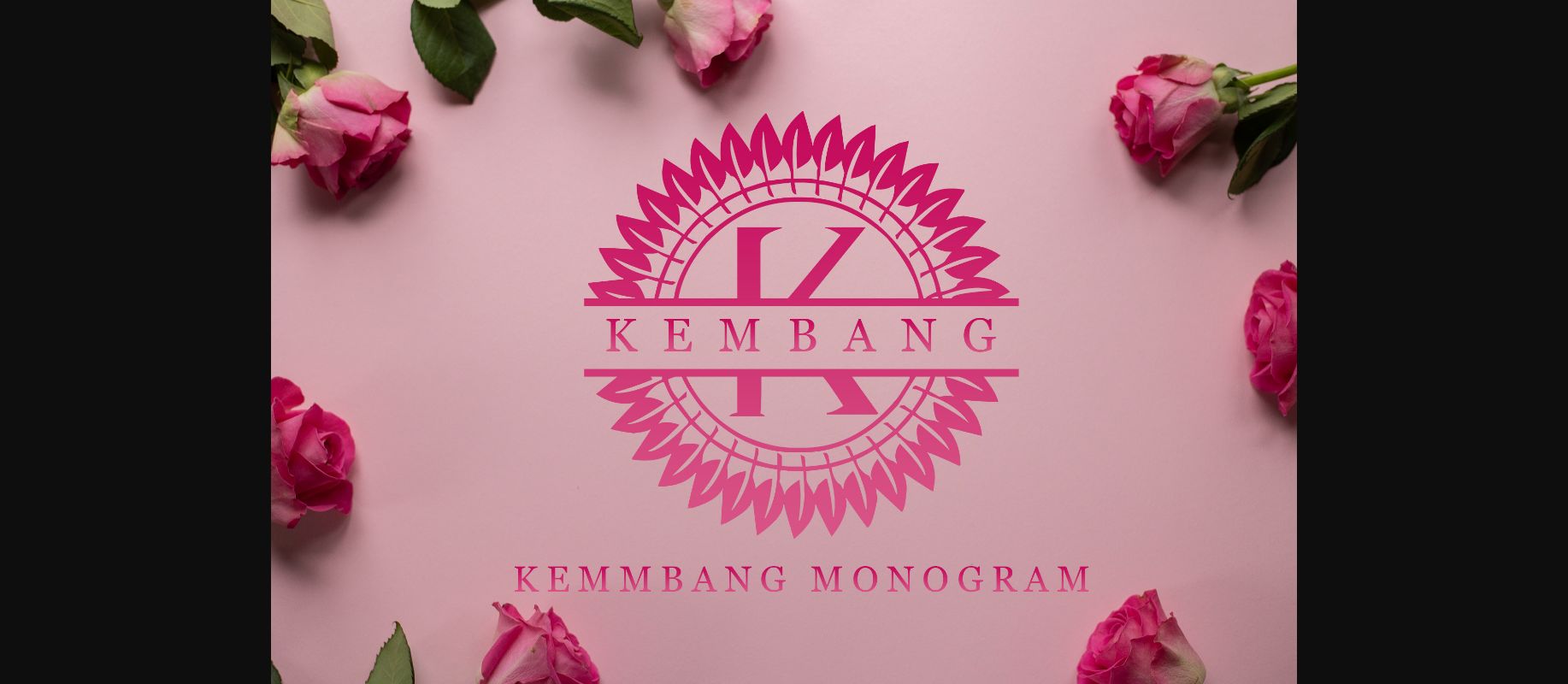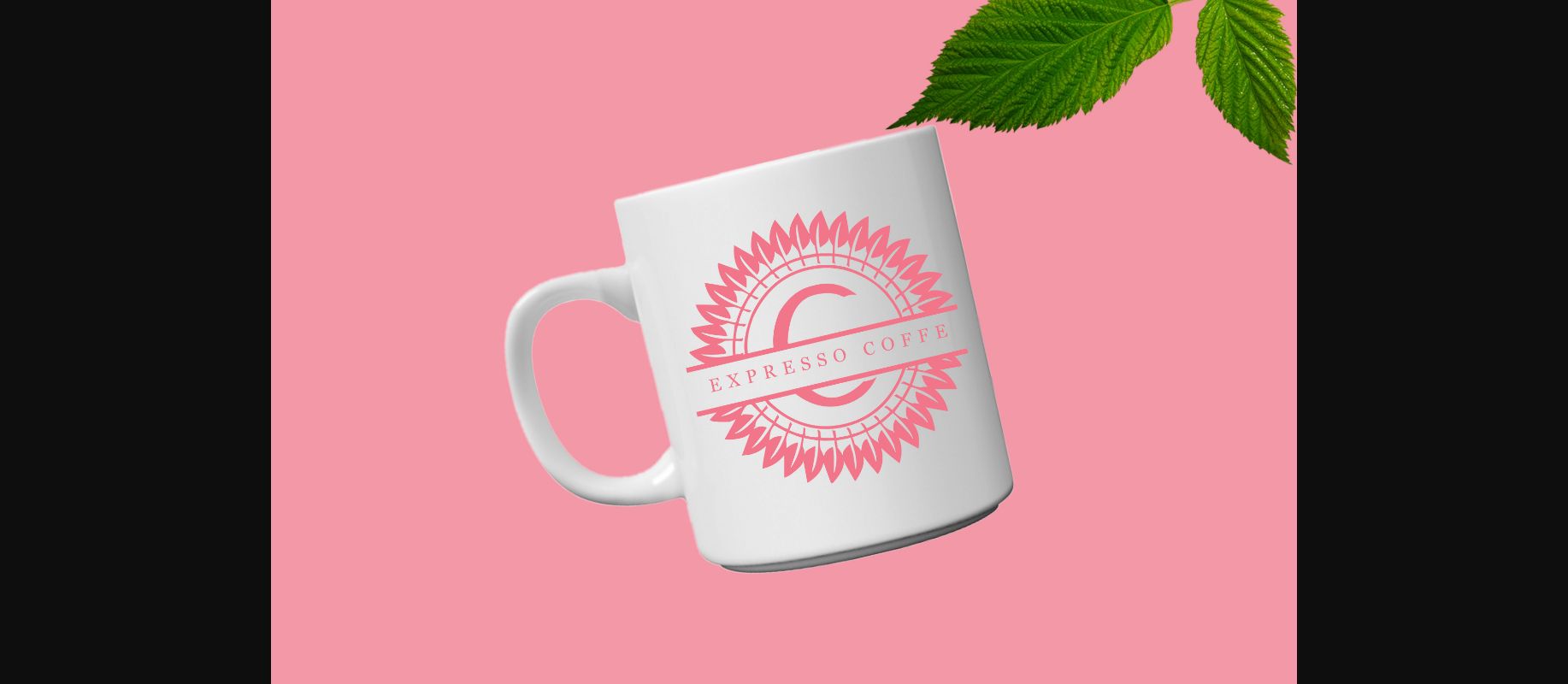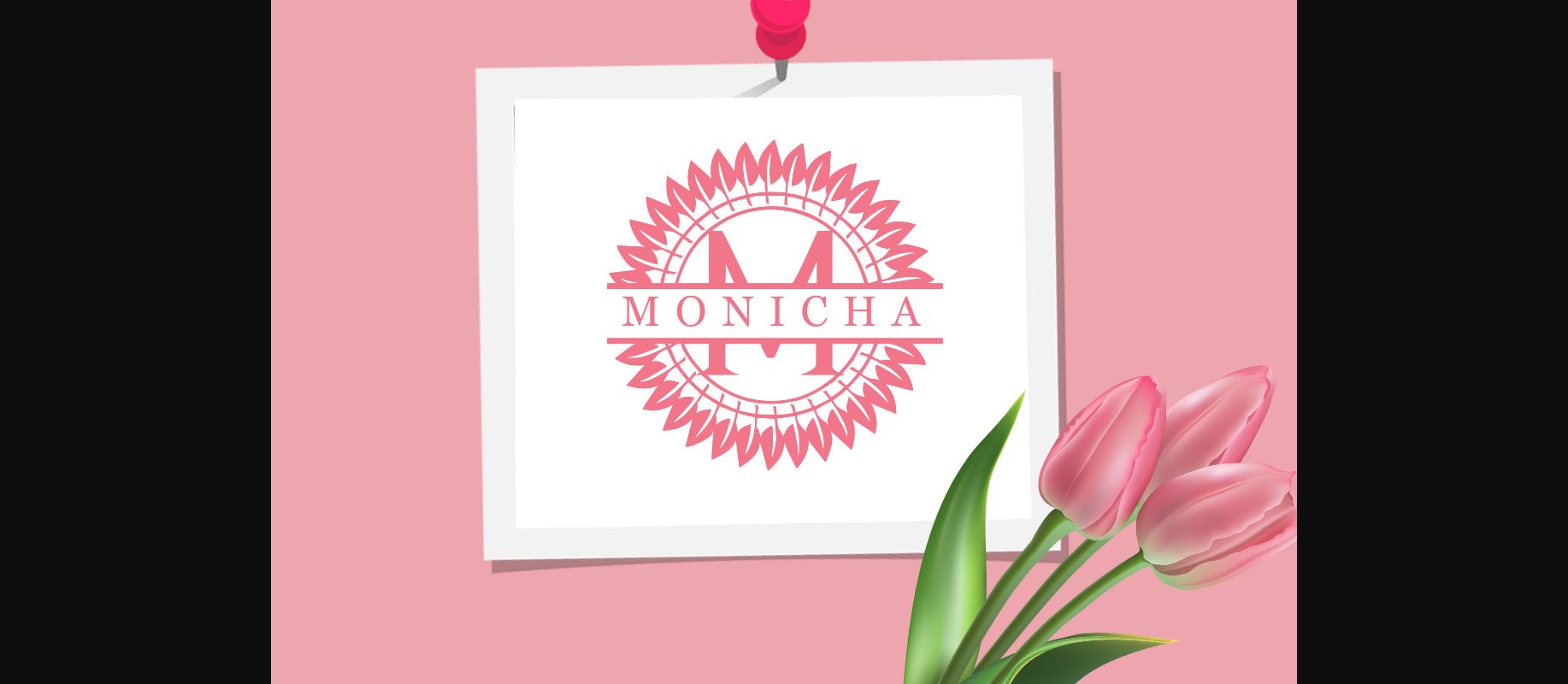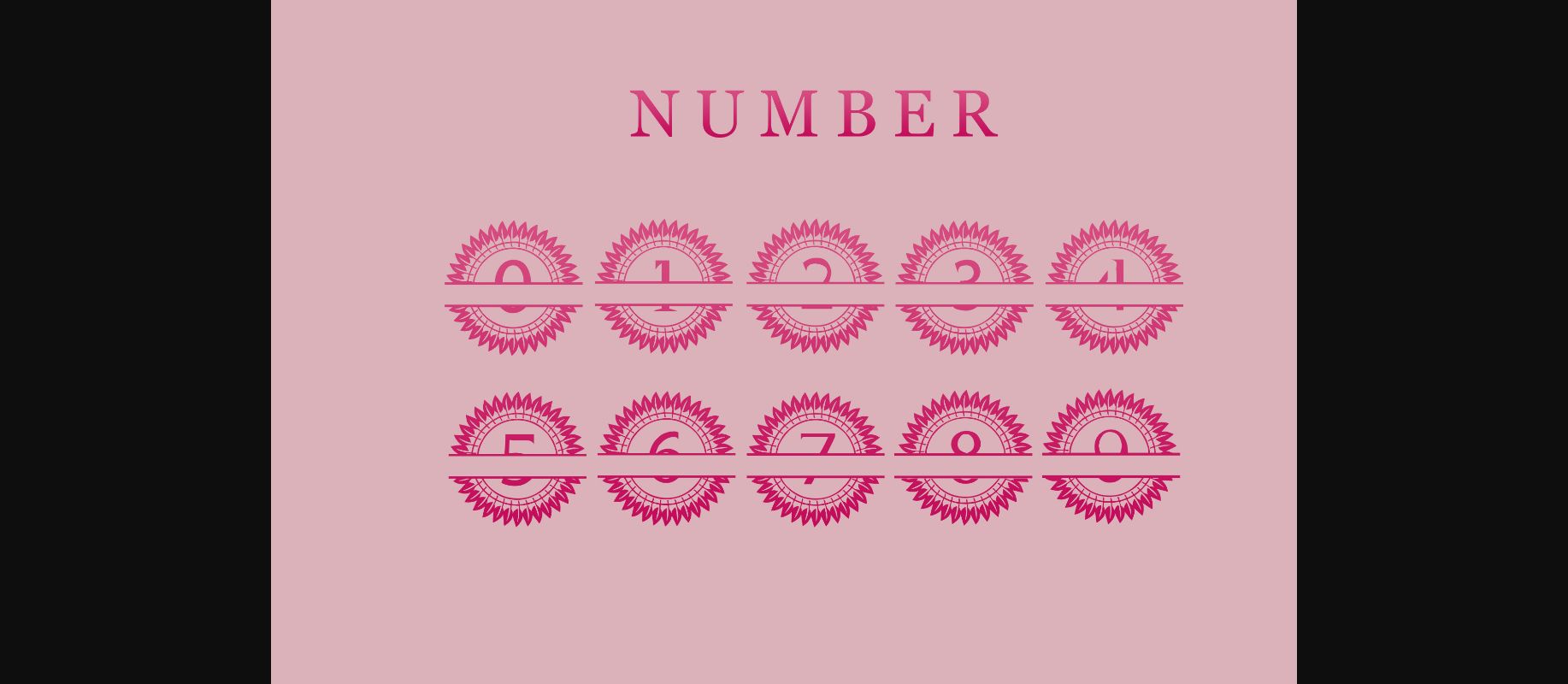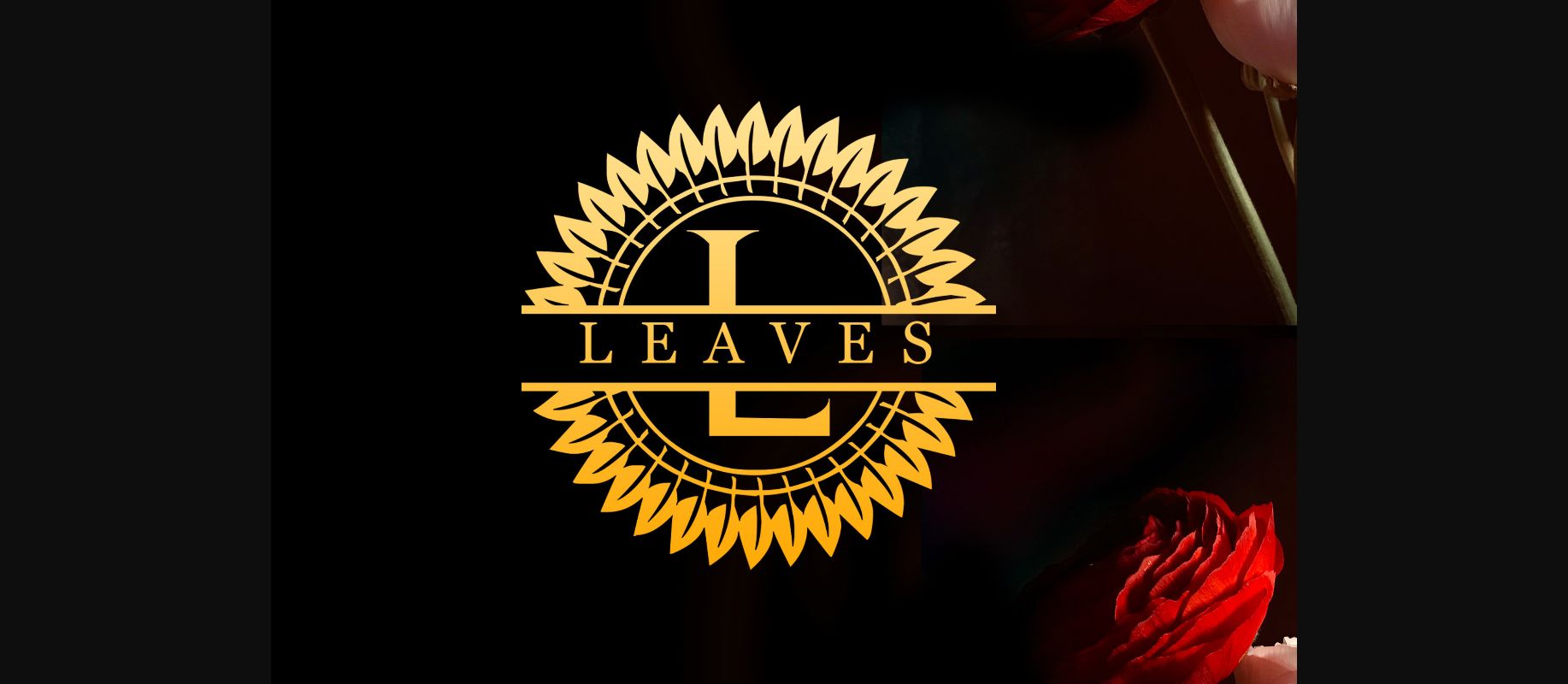
About Kembang Font
Kembang is an intricate decorative font. Specially designed to create personalized mugs, t-shirts, and business cards, this font is ready to impress while looking stylish and bold!